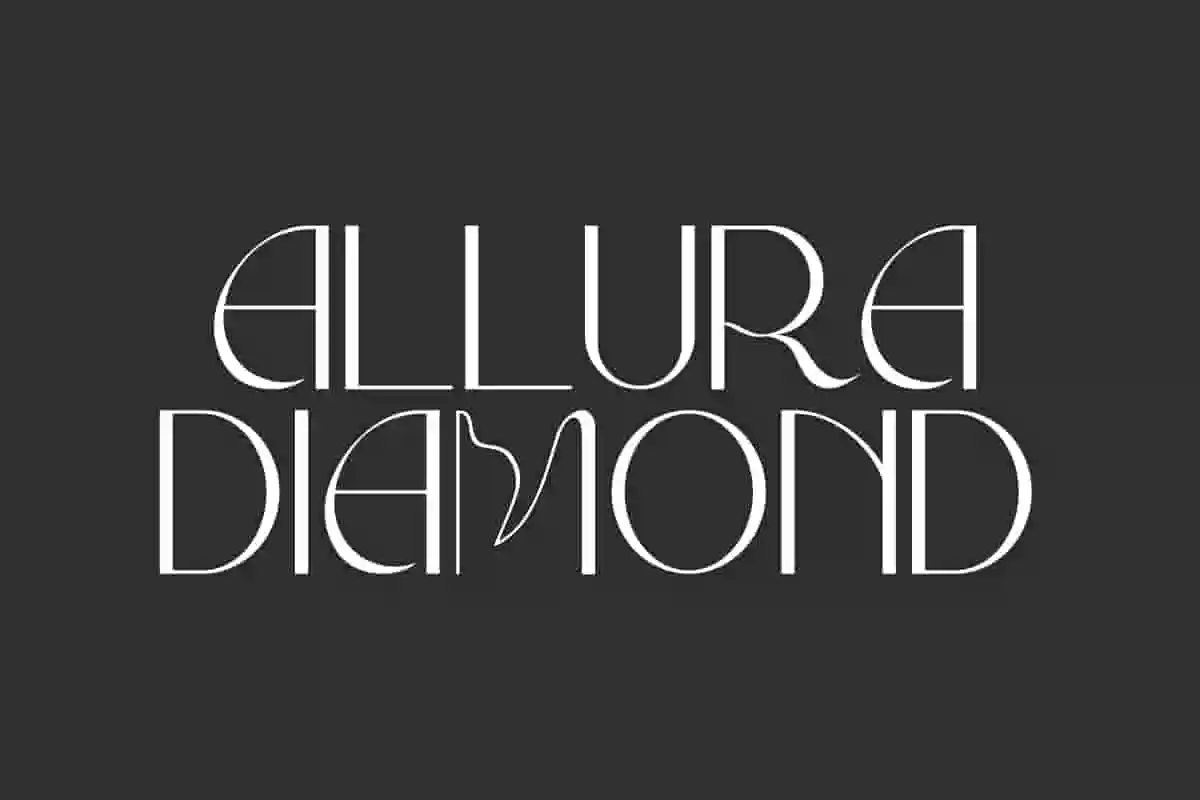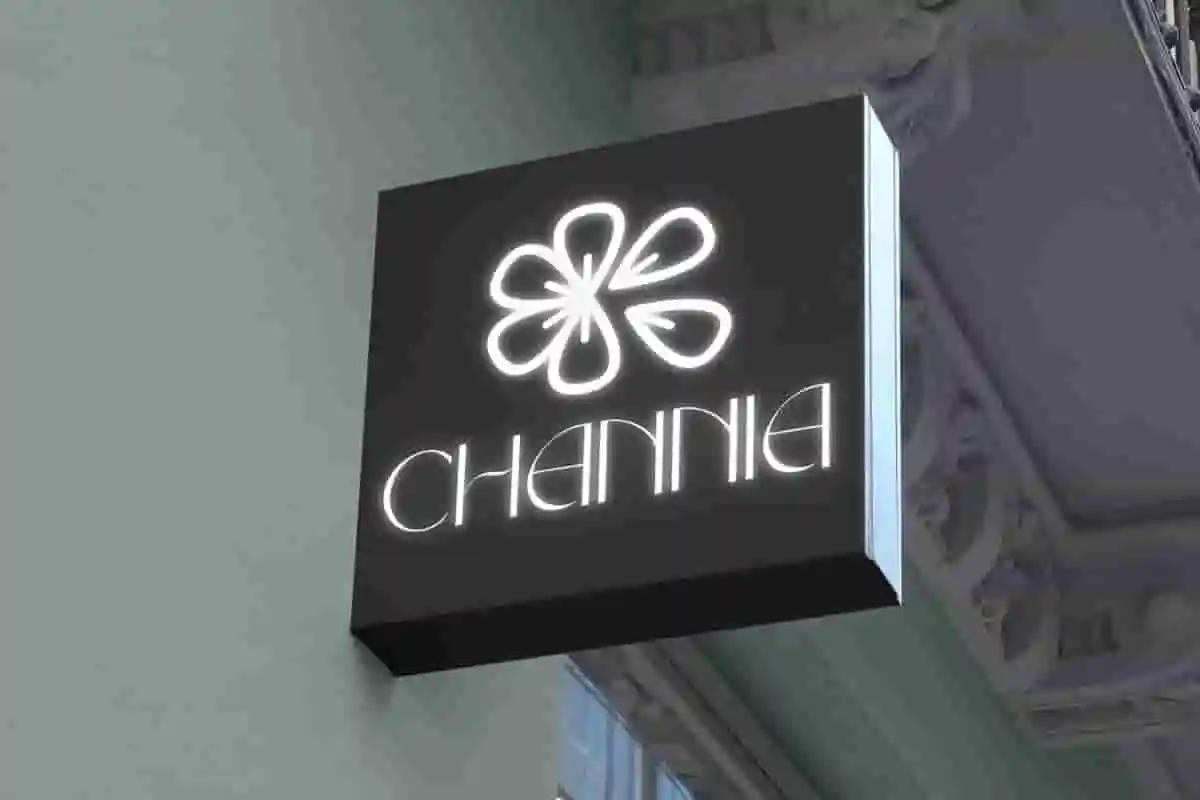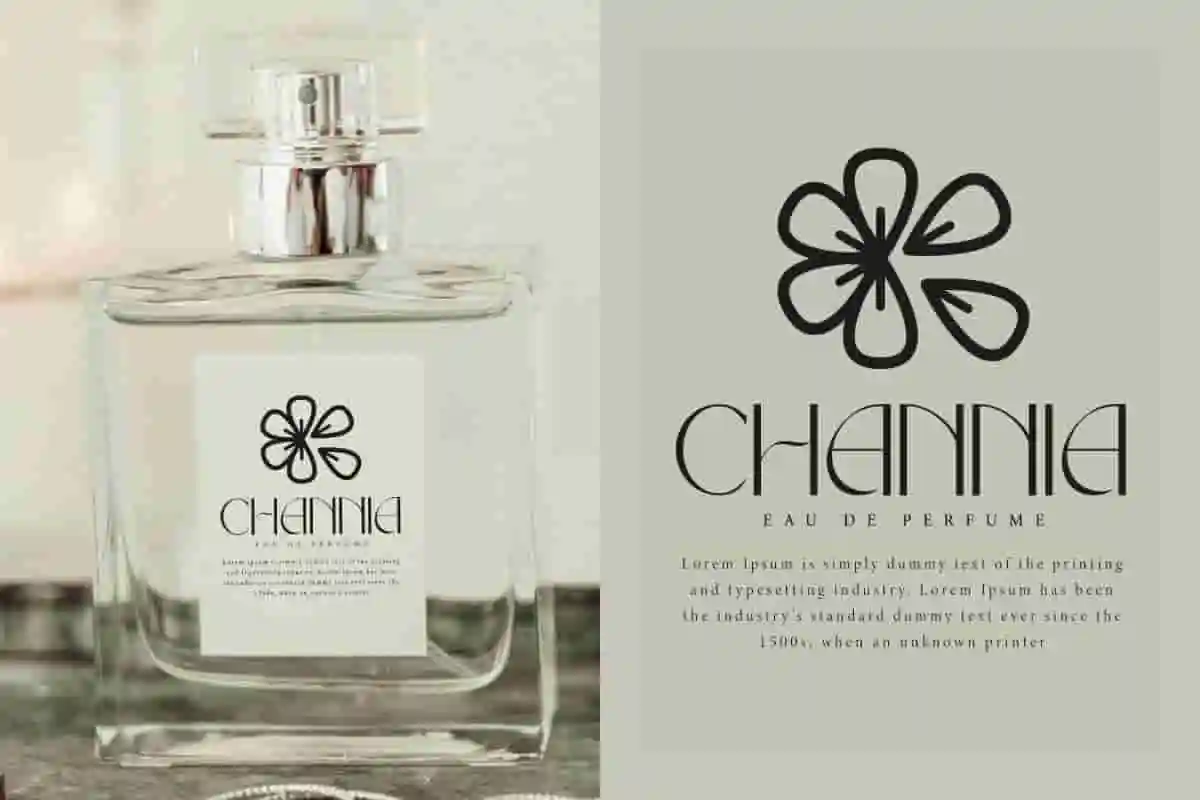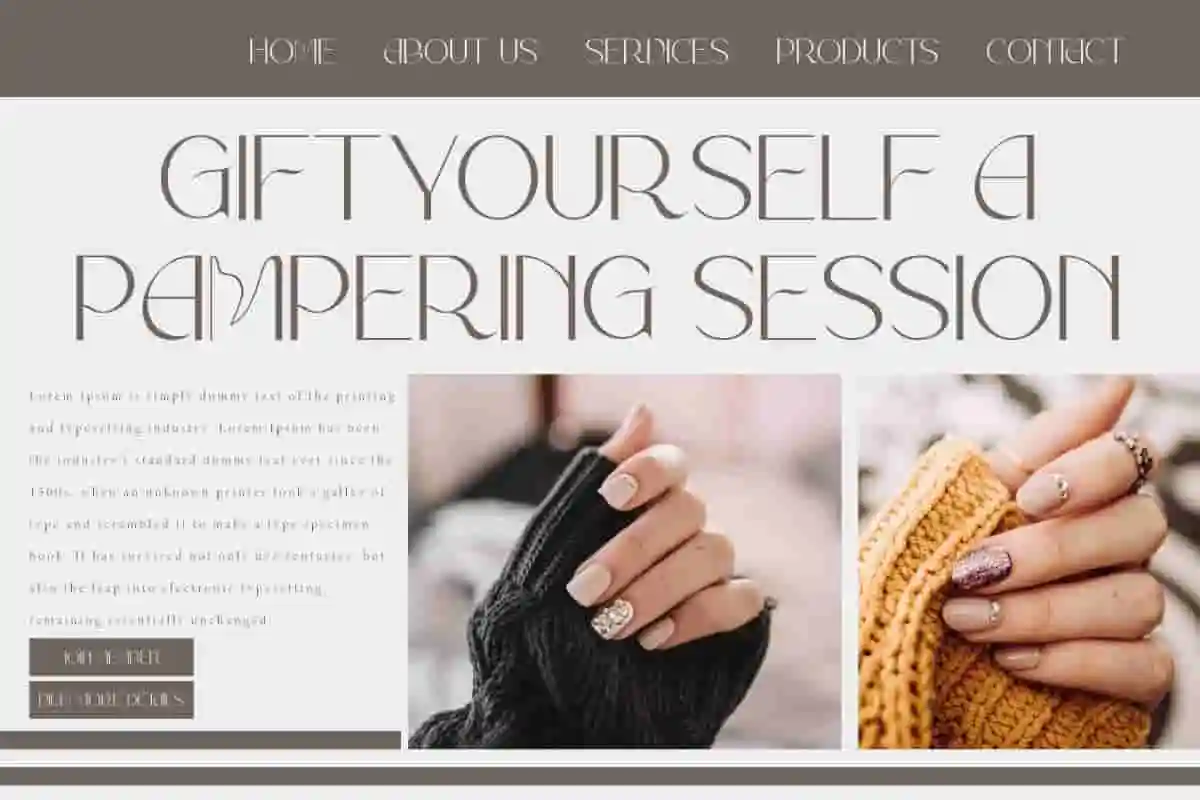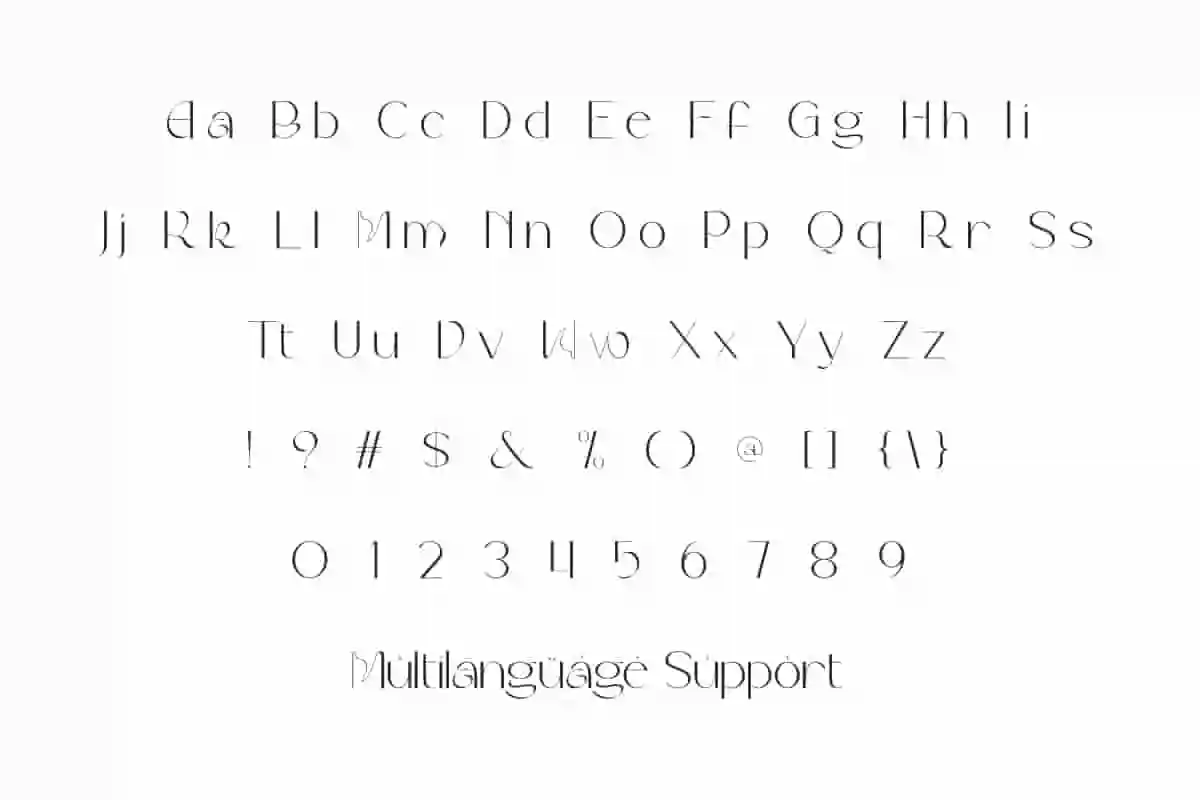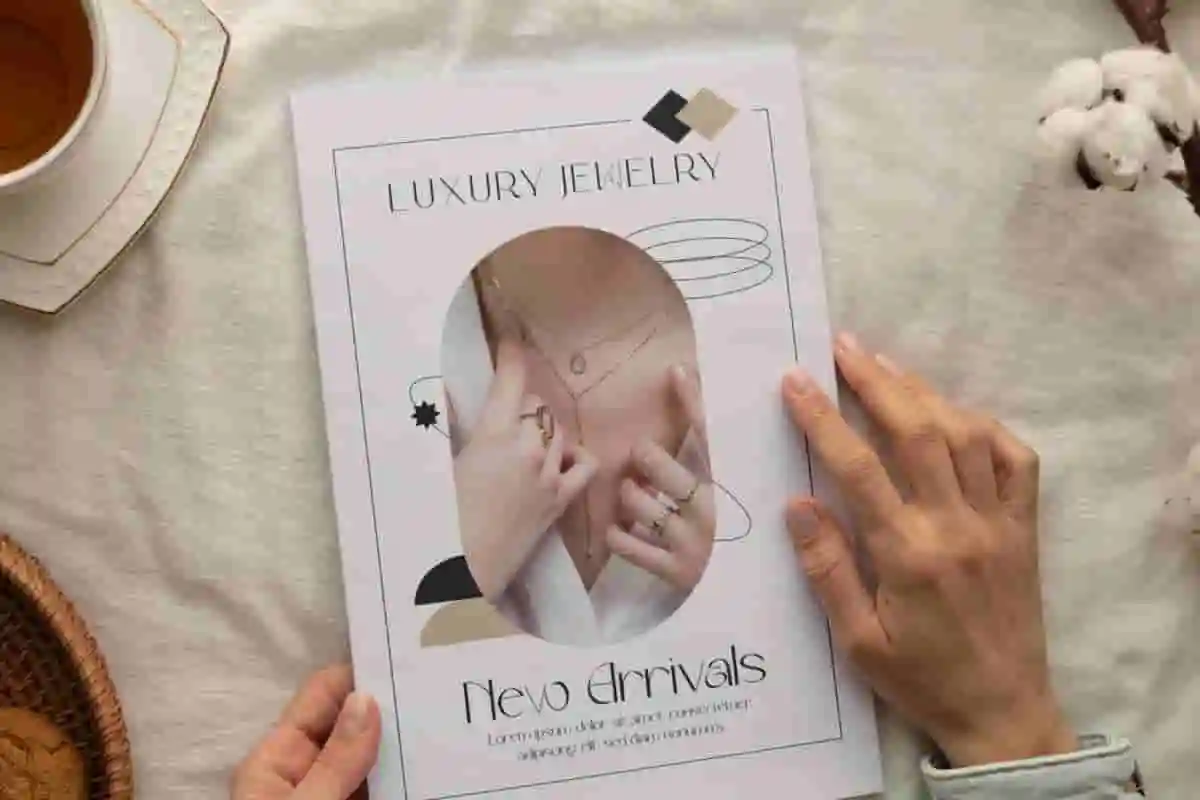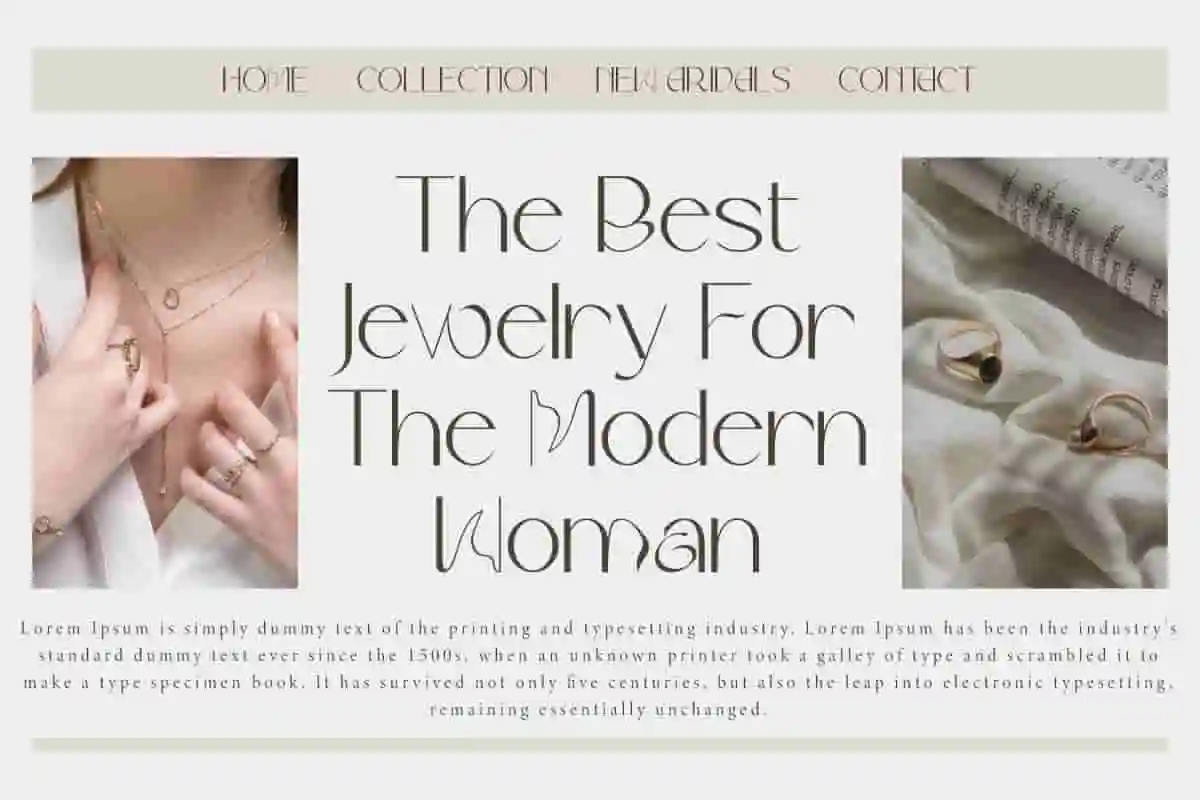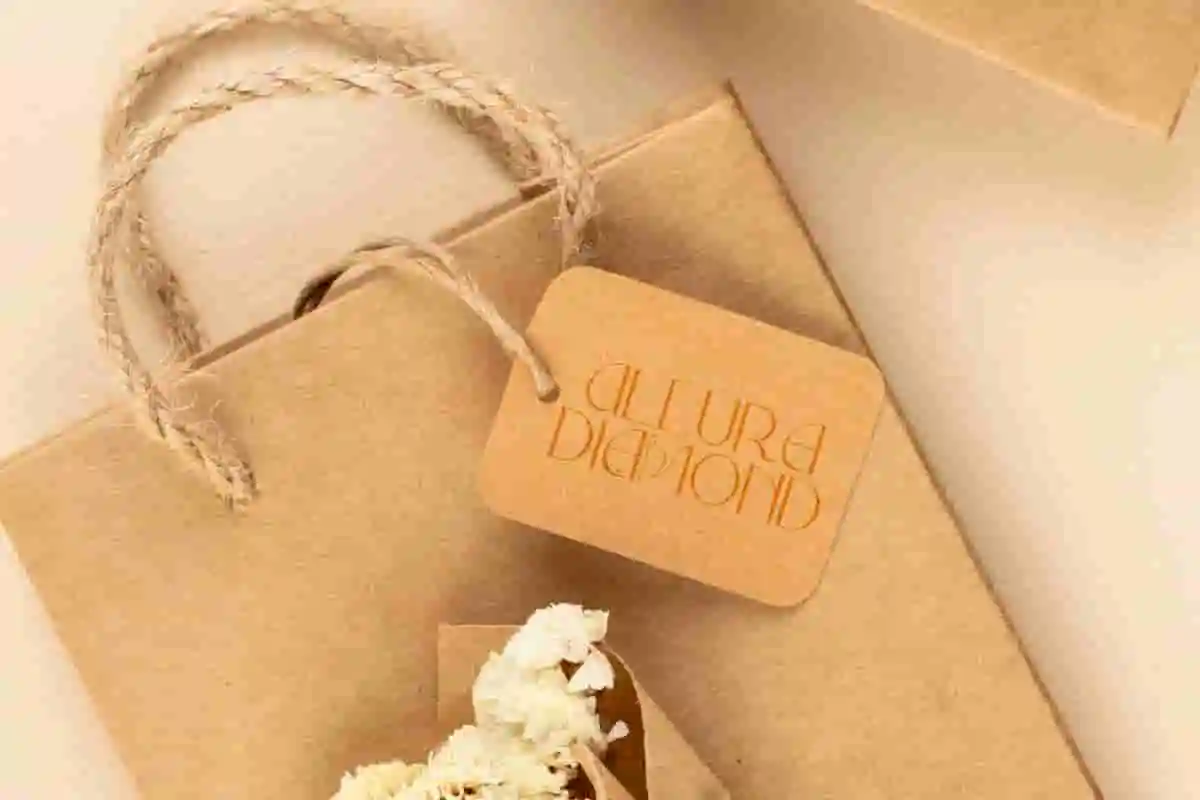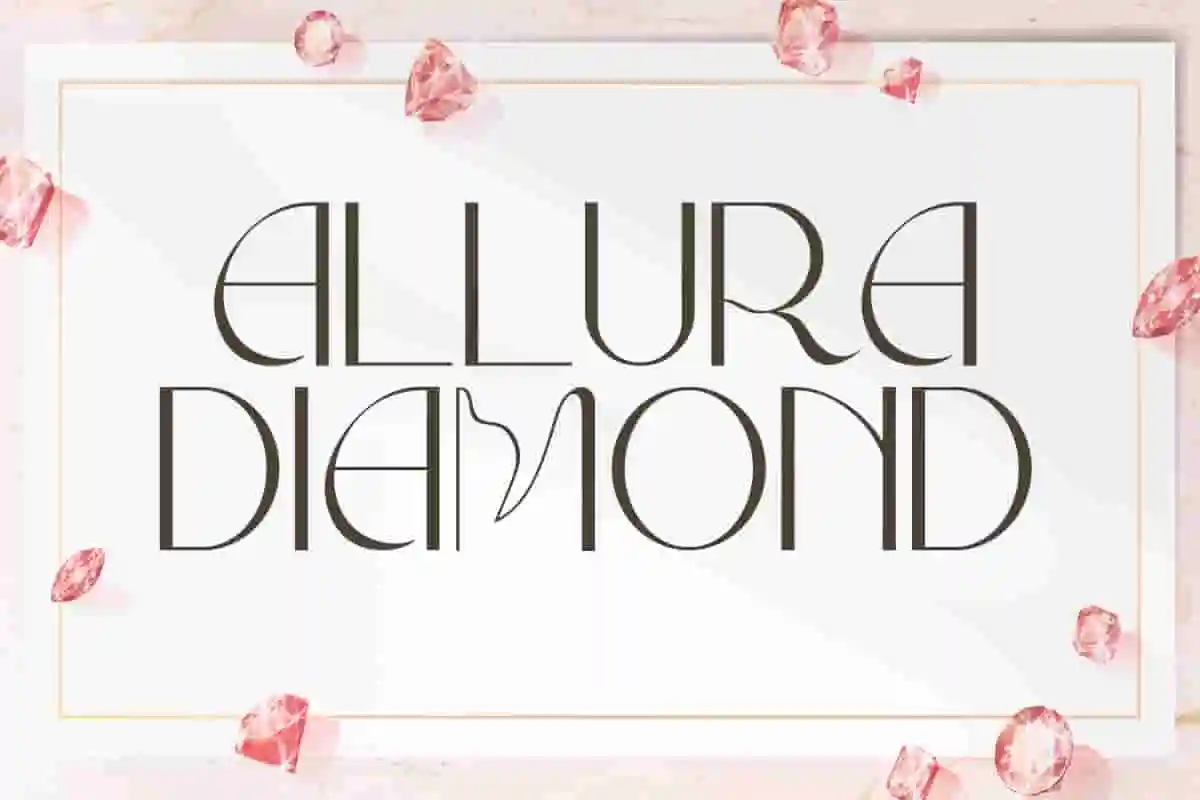
Shine Bright with Allura Diamond – A Luxury Display, Sans & Serif Duo Font for Elegant Branding
A Sophisticated Font Duo for Timeless Design
Introducing Allura Diamond, a premium display font duo that combines elegance, clarity, and versatility in one flawless typeface collection. Featuring refined sans and serif styles, this luxury font is designed to elevate your branding, packaging, invitations, and editorial layouts.
Perfect for High-End Visuals
Crafted for designers who value both beauty and functionality, Allura Diamond delivers clean lines, stylish contrast, and a unique personality. Whether you’re creating fashion labels, logos, social media graphics, or print materials, this modern font bundle ensures your message looks polished and professional.
Allura Diamond Font is a luxurious sans serif display font with elegant looks. This font has an elegant style that exudes a strong feminine aura with great beauty. It would be perfect for any projects, such as advertising, blog, brand image, invitation card, label, layout design, quotes, signage, template designing purposes, websites and more.
Allura Diamond Font includes full set of Uppercase and Lowercase Basic Characters, Numerals, Punctuation, and Symbol. It’s a beautiful sans serif typeface that will adds a fashionable touch. It’s perfect for accessories and jewelry, cosmetic, event or wedding organizer, fashion, florist, furniture, real estate, skincare, spa salon, etc.